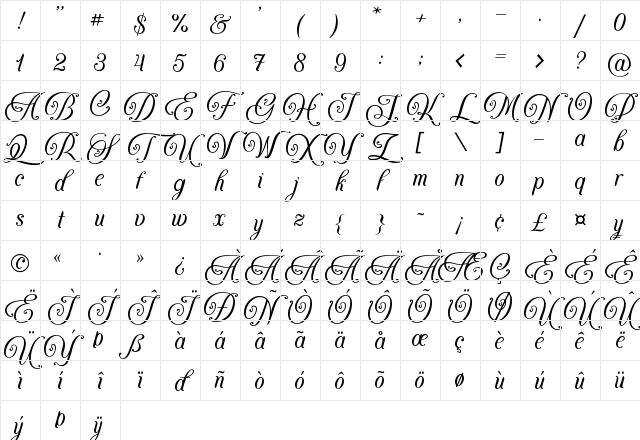
Agenda King Regular
Designer: Virgiawan Listanto
Design Context for Agenda King
Agenda King is a composed and adaptable typeface that performs quietly and consistently across a wide range of design contexts.